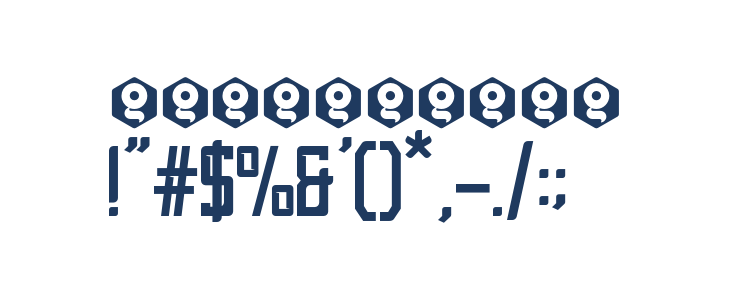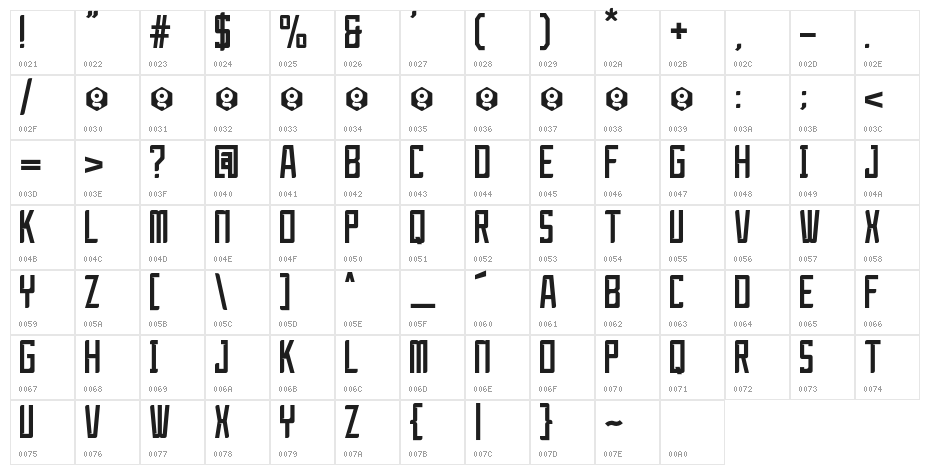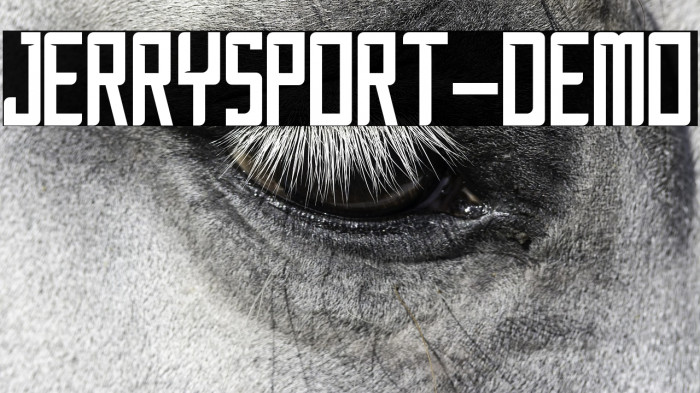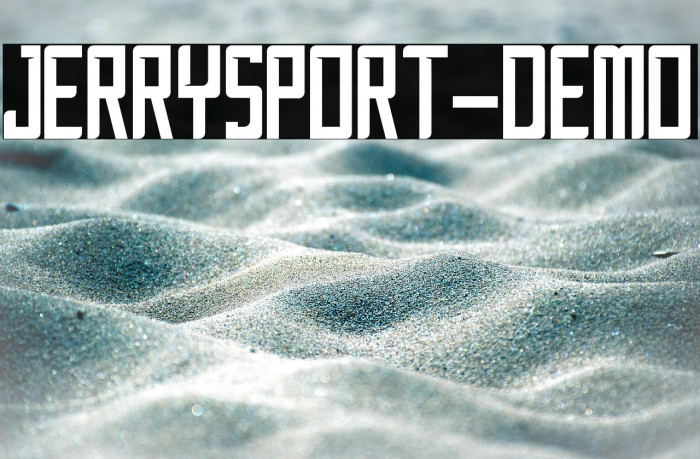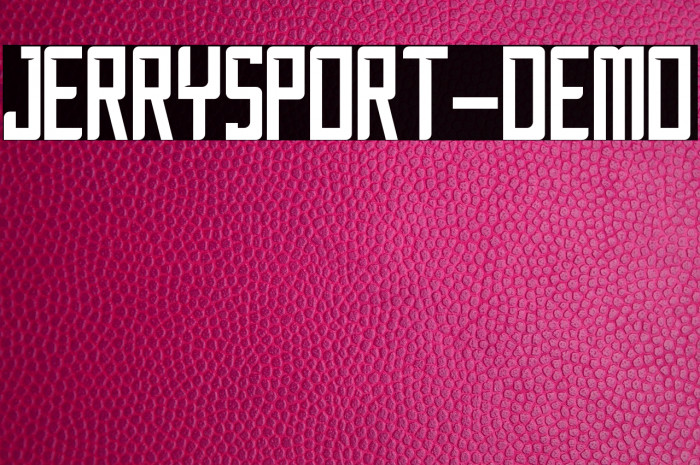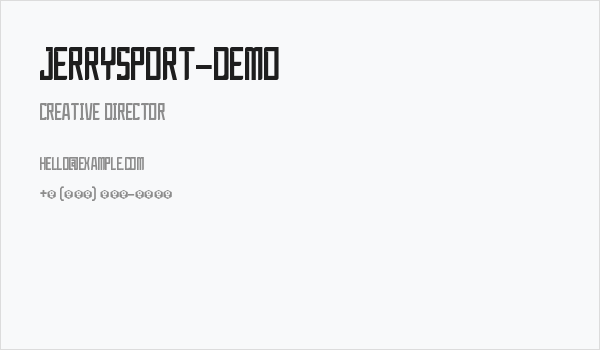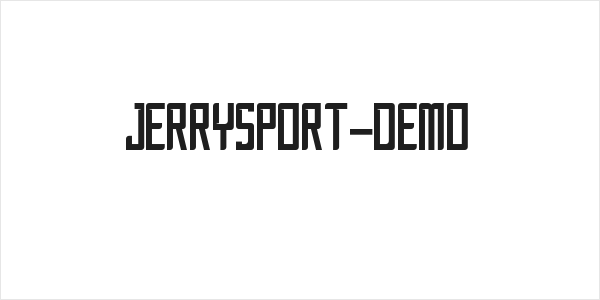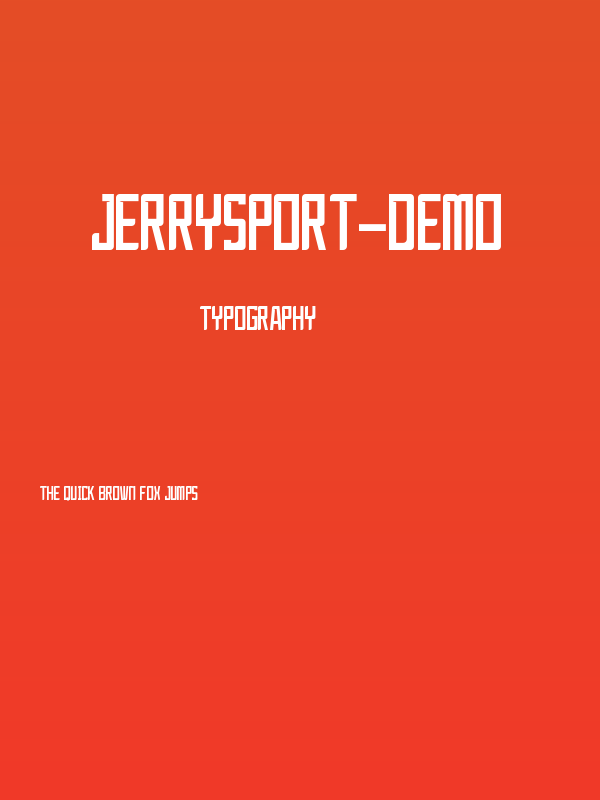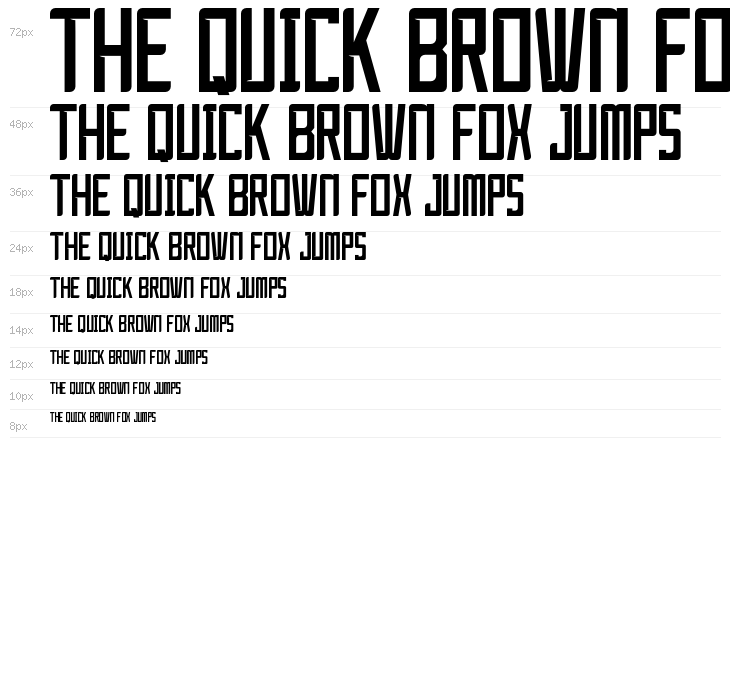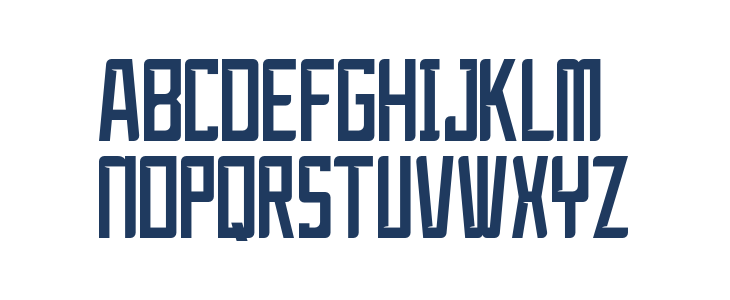
JerrySport-Demo Font
JerrySport-Demo Description
This font features a bold and geometric style with strong, angular lines and a modern aesthetic. The uppercase letters are tall and narrow, giving a condensed appearance, while the lowercase letters maintain a consistent height, creating a uniform look. The numbers are uniquely designed with a hexagonal background, adding a distinctive touch. Special characters are crafted with the same boldness, ensuring they stand out. The overall design is striking and suitable for attention-grabbing headlines or logos.